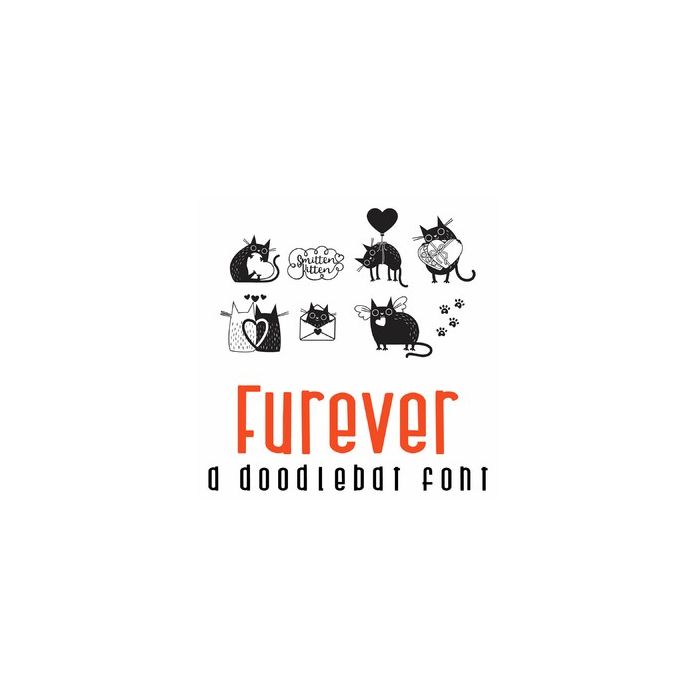
This doodlebat font features 26 adorable feline fur babies ready for love. Purr-fect for Valentines, crafts, decor, parties, scrapbook pages, planner stickers and more!